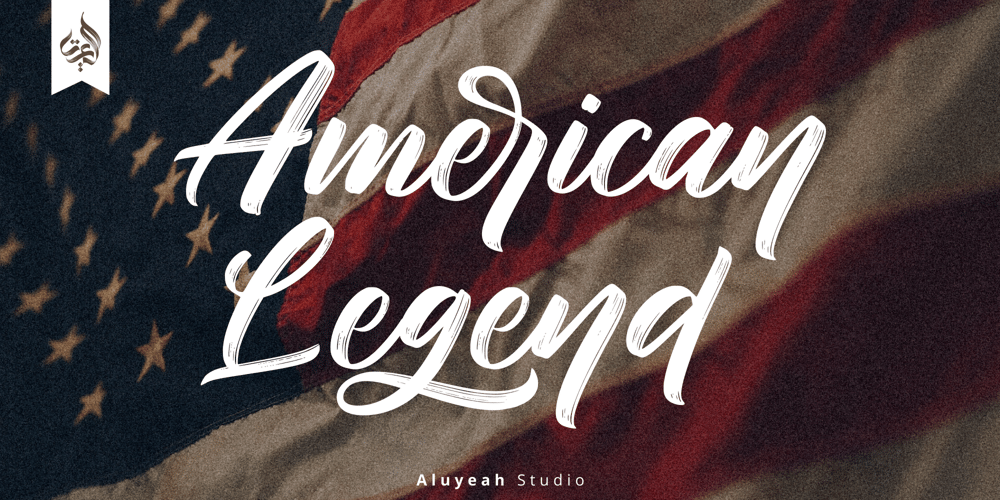
Al American Legend Font Family was designed by Linggar Sundoro and published by Aluyeah Studio. Al American Legend contains 1 styles and family package options. Hello Aluyeaholics!So we tried playing with the script, we hope you like it. American Legend is inspired by vintage handwriting. Comes with 220+ stunning alternates and ligatures. Super easy to use alternates and ligatures.Super Easy to Use alternates – You can easily call alternates using special combination like a.2 a.3 b.5 e.r a.r l.l etc. To get results like the preview just type Ame.rican Leg.9end